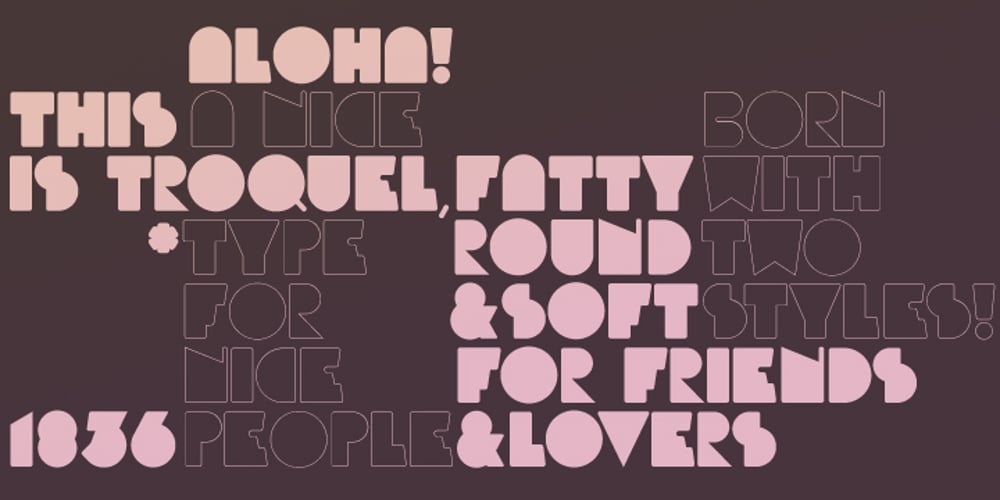
Troquel Font Family was designed by Pau Lamuà and published by Pau Lamuà. Troquel contains 2 styles and family package options. Troquel is a fat font, with feminine curves. Soft edges give this slightly overweight typeface a big and beautiful happy style. Combining fatty with his sister outline version helps to provide a nice contrast between each weights glyphs. Troquel has uppercase characters, numbers, and the basic punctuation.